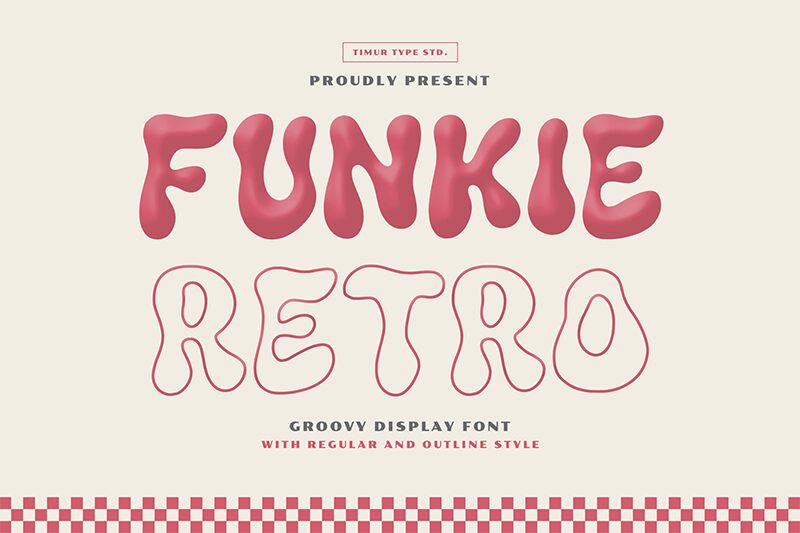
Funkie Retro Outline
Funkie Retro Outline font by Timur Type is a free display font with irregular shapes and a vintage feel. It emulates handwriting, and its whimsical groovy mood is reflected in playful, blob-like smooth edges. The unique lined design has a psychedelic edge that works seamlessly for impactful large-size text.
Funkie Retro Outline is free, making it an attractive option for logos, brand designs, headlines, posters, typography art pieces, creative website titles and headers. T-shirt designs that require nostalgia appeal will also benefit from this font’s vintage look.
Pastry Funkie Retro Font also supports multilingualism.
The Funkie Retro premium typeface features: